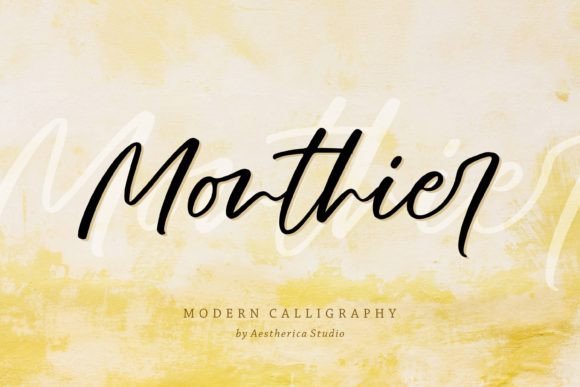
**Monthier: The Font That Captures the Essence of Timeless Elegance**
In the realm of typography, where words dance upon the canvas of imagination, there exists a font that transcends the ordinary, a font that embodies the very essence of timeless elegance – Monthier. Crafted with meticulous precision by the renowned Aestherica Studio, Monthier is a modern and original handwritten font that will effortlessly elevate any creative endeavor.
Unleash your creativity and embark on a journey where each letter becomes a brushstroke of artistry, adding a touch of sophistication to your designs. Monthier's graceful curves and delicate strokes evoke a sense of warmth and intimacy, making it the perfect choice for those seeking to create a lasting impression.
Whether you're crafting a heartfelt wedding invitation, designing a captivating logo that commands attention, or seeking to add a touch of elegance to your social media presence, Monthier is the font that will effortlessly elevate your creations.
Let your imagination soar as you explore the endless possibilities that Monthier offers. From branding projects that exude professionalism to wedding designs that radiate romance, every letter you place will become a testament to your discerning taste and unwavering commitment to excellence.
**Reasons Why Monthier Will Captivate Your Heart:**
* **A Touch of Grace:** Monthier's delicate strokes and flowing curves add a touch of grace to any design, capturing the essence of timeless beauty.
* **Versatility Personified:** With its wide range of applications, from branding projects to wedding invitations, Monthier empowers you to unleash your creativity across multiple platforms.
* **Emotional Resonance:** Monthier's handwritten style evokes a sense of warmth and intimacy, creating designs that resonate with your audience on a deeper level.
* **A Statement of Sophistication:** Every letter you place with Monthier becomes a statement of sophistication, elevating your creations to new heights of elegance.
* **Effortless Elegance:** Monthier's user-friendly design ensures that crafting stunning designs is a breeze, allowing you to focus on expressing your unique vision.